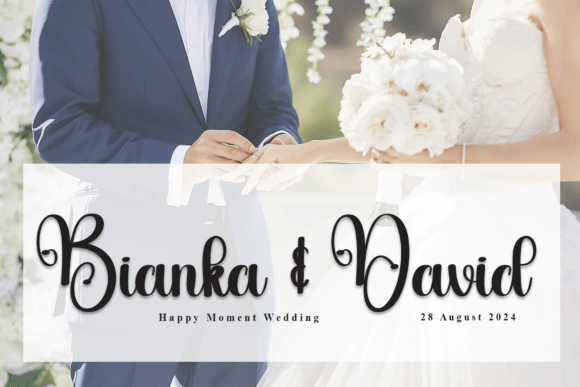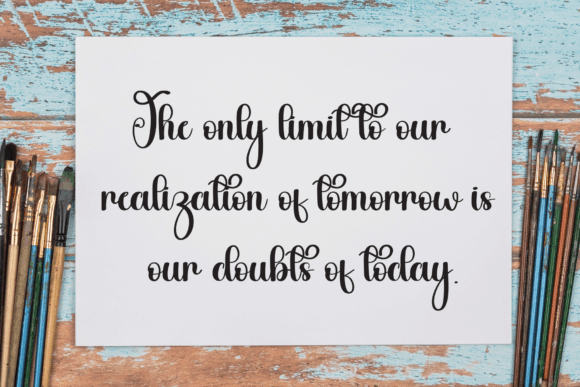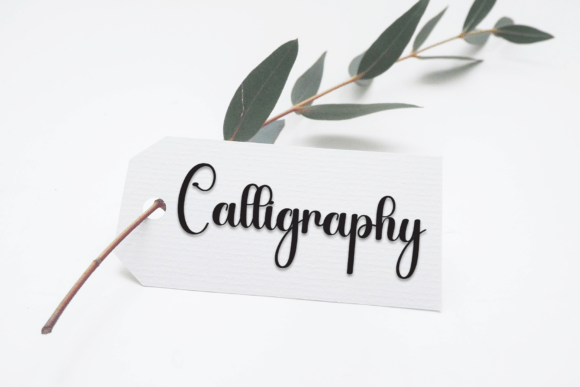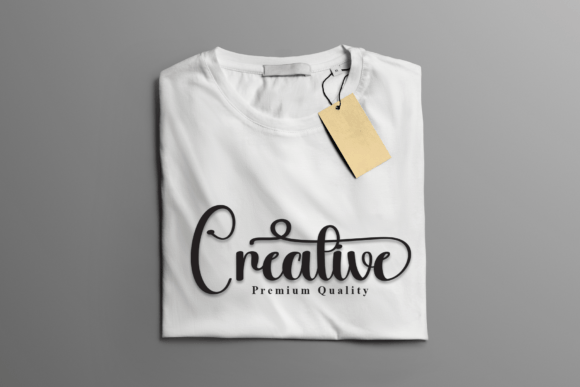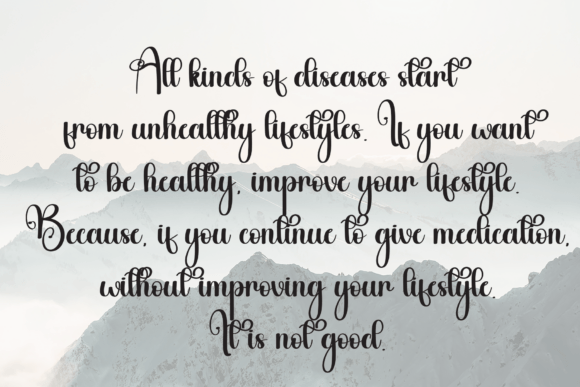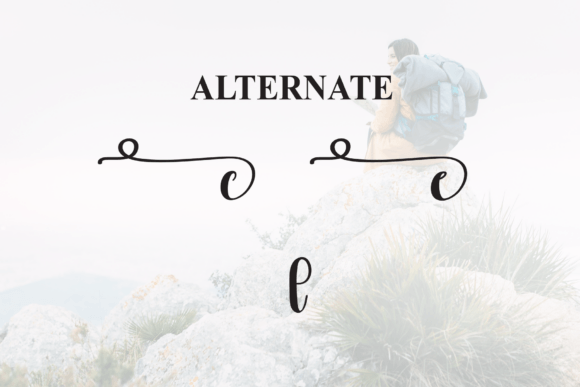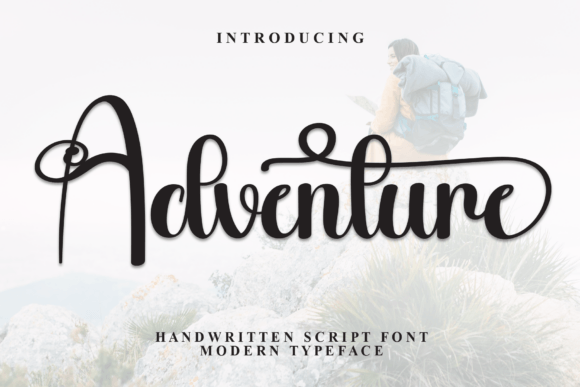
Discover the Charm of Adventure Font: A Handcrafted Delight for Creative Projects
Have you ever been in the middle of a design project, pouring your heart and soul into it, only to hit a creative roadblock because you just can’t seem to find the right font? I certainly have! It was during one of those moments, working on a wedding invitation design, that I stumbled upon the Adventure Font. This charmingly intimate, handcrafted font has been a game-changer for me, and I’m excited to share its magic with you!
A Personal Encounter with Adventure Font
I was tasked with creating a whimsical wedding invitation that captured the couple’s fun-loving and adventurous spirit. As I scrolled through my font library, none seemed to convey the right blend of sweetness, friendliness, and playfulness. That’s when I discovered Adventure Font. Its unique, handcrafted aesthetic immediately drew me in, and I knew I had found the perfect fit.
- ✨ Sweet and Friendly Aesthetic: Adventure Font exudes warmth and approachability, making it perfect for projects that require a personal touch.
- ✅ Highly Versatile: From wedding invitations to greeting cards, and even social media graphics, this font adapts seamlessly to various design contexts.
- 🎉 Playful yet Elegant: It strikes the perfect balance between whimsy and sophistication, ensuring your designs stand out without looking too frivolous.
⚠️ While Adventure Font is incredibly versatile, it’s worth noting that its highly decorative nature might not make it the best choice for very formal projects or lengthy texts. Also, some of the more intricate details may not render as crisply at very small sizes.
🤔 One thing to keep in mind is that, due to its unique design, it might require a bit of experimentation to find the perfect balance with other design elements.
The Story Behind Adventure Font
Adventure Font was inspired by the creator’s love of vintage travel posters and hand-lettered wedding invitations. The goal was to craft a font that felt both adventurous and intimate, perfect for designs that require a personal touch. The result is a typeface that is as at home on a wedding invitation as it is on a fun, quirky greeting card.
Q: Is Adventure Font suitable for body text?
A: While Adventure Font is stunning for headings and short texts, its decorative nature makes it less ideal for lengthy body text. For readability, consider pairing it with a clean, sans-serif font for longer passages.
Q: Does Adventure Font support multiple languages?
A: Adventure Font includes basic Latin character sets, making it suitable for English and many other European languages. For specific language support, it’s best to check the font’s documentation or contact the creator.